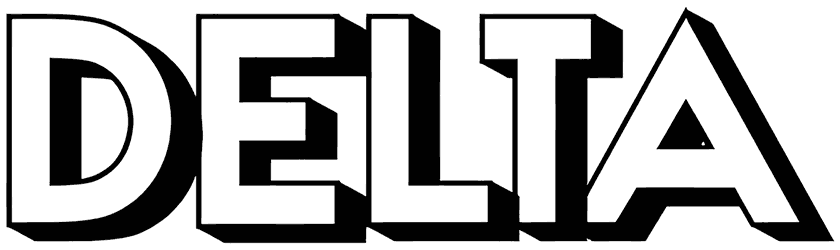
Delta Font
If you want to add depth and dimension to your designs, the Delta font can be the right choice. This shadow font has an effect behind the letters, giving them a three-dimensional appearance and leaving the page. So you c…
If you want to add depth and dimension to your designs, the Delta font can be the right choice. This shadow font has an effect behind the letters, giving them a three-dimensional appearance and leaving the page.
So you can use it to create a wide range of products, such as advertising, marketing, and branding. Also, the standard design of this 3D font can depict your desired mood while being simple. So go ahead and let your creativity run wild without small letters!